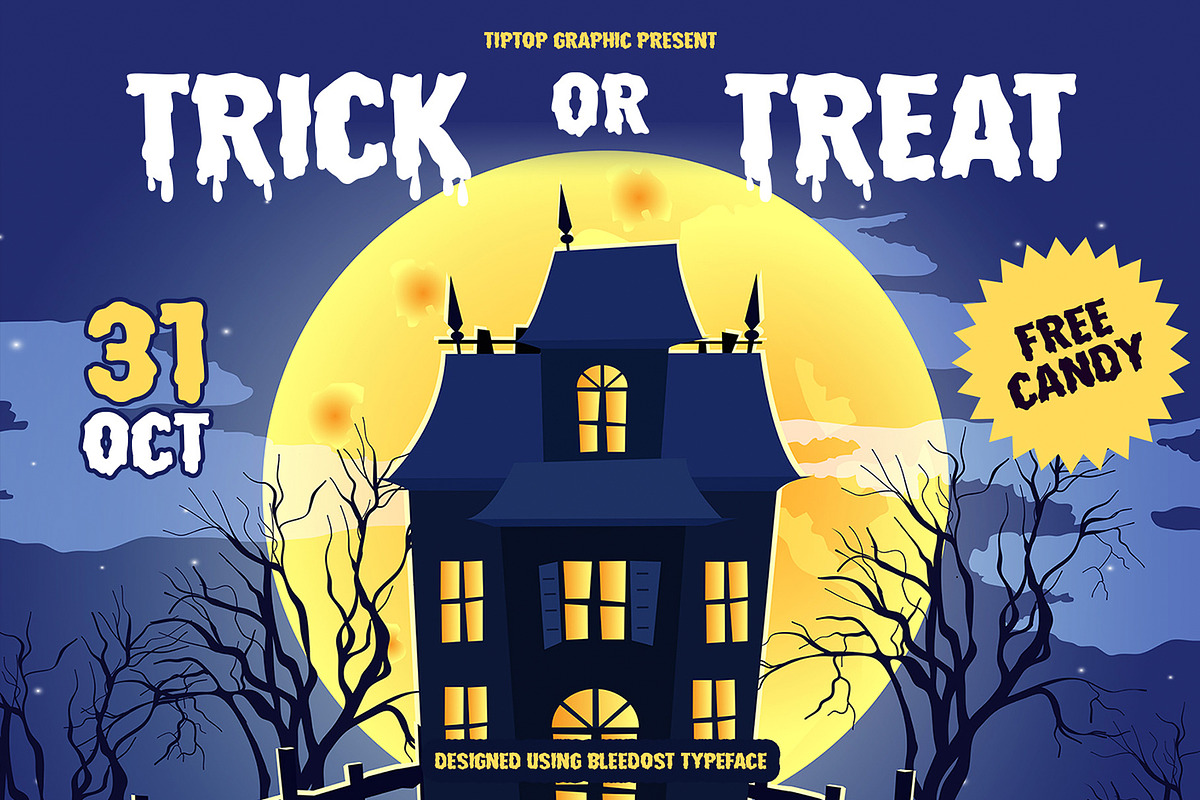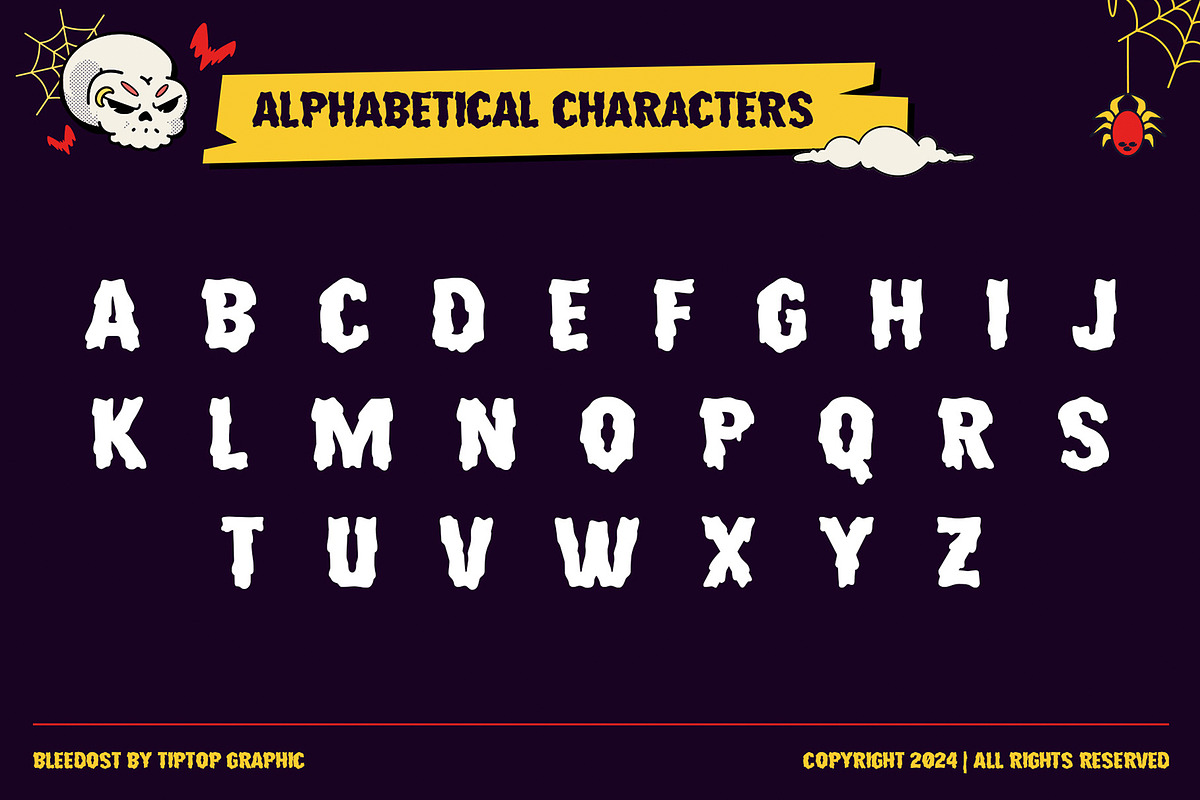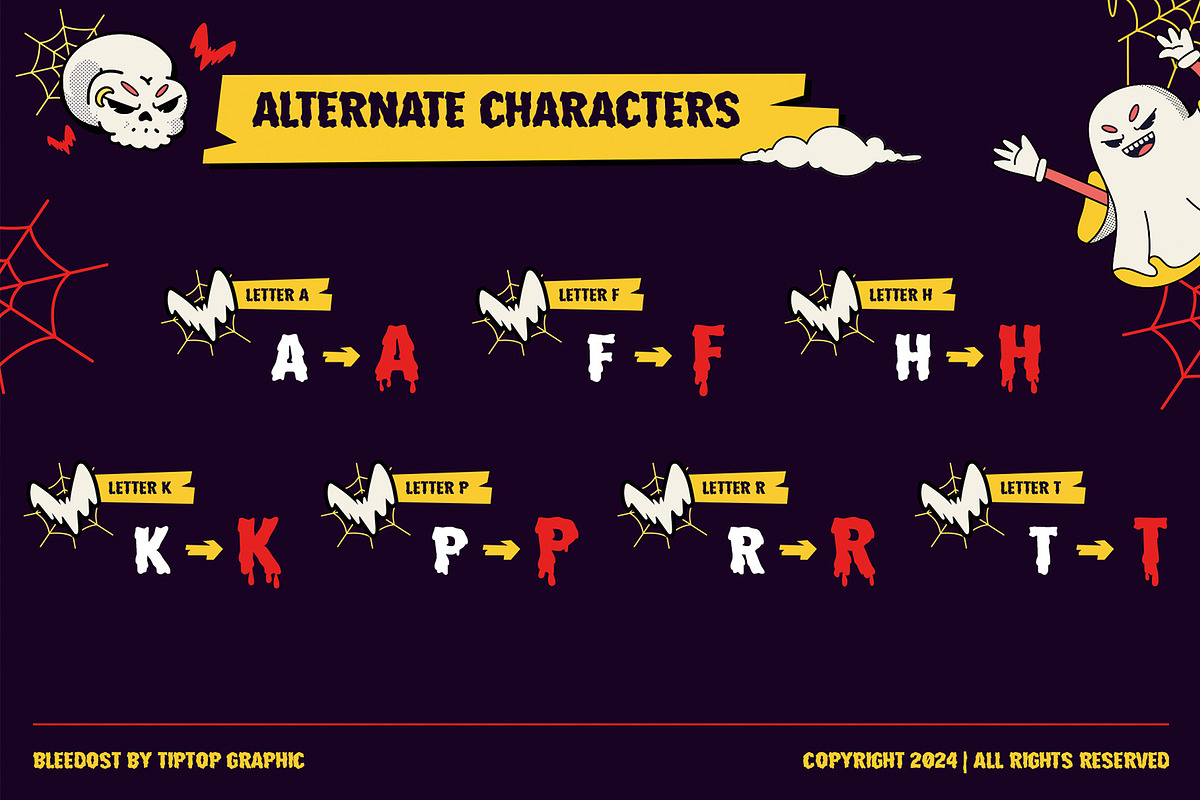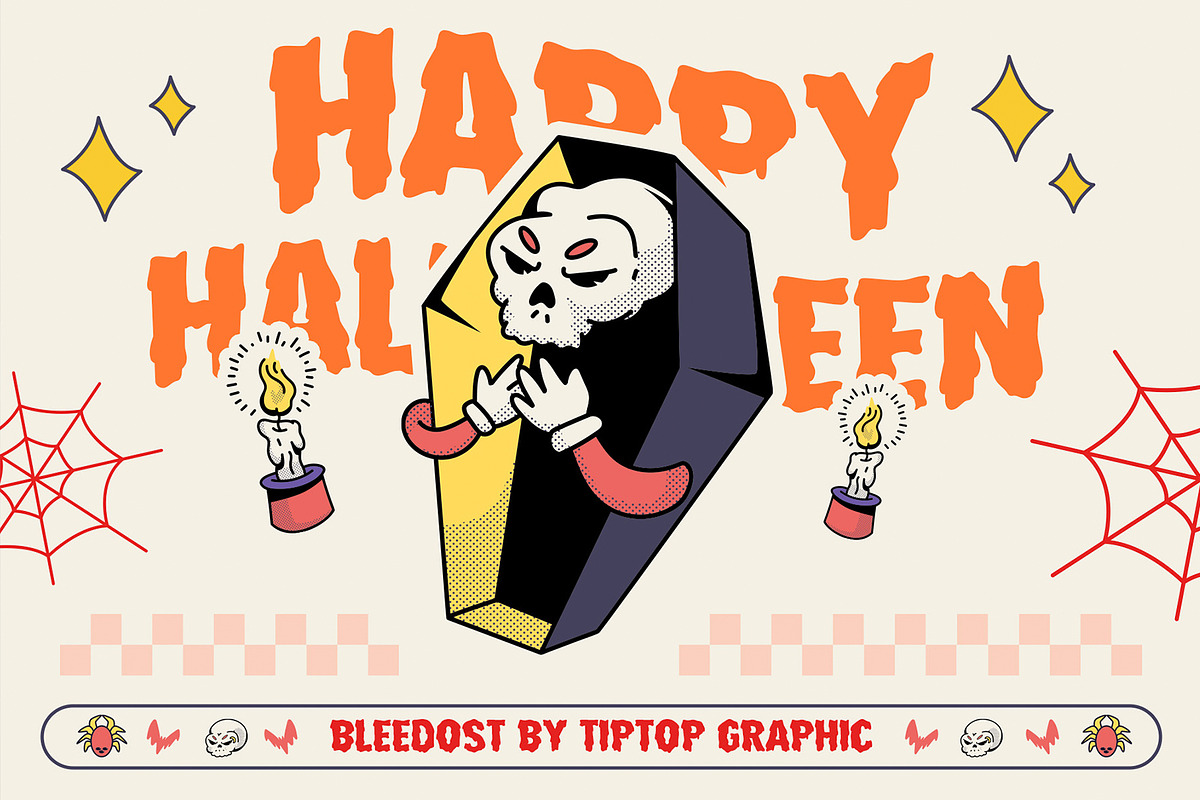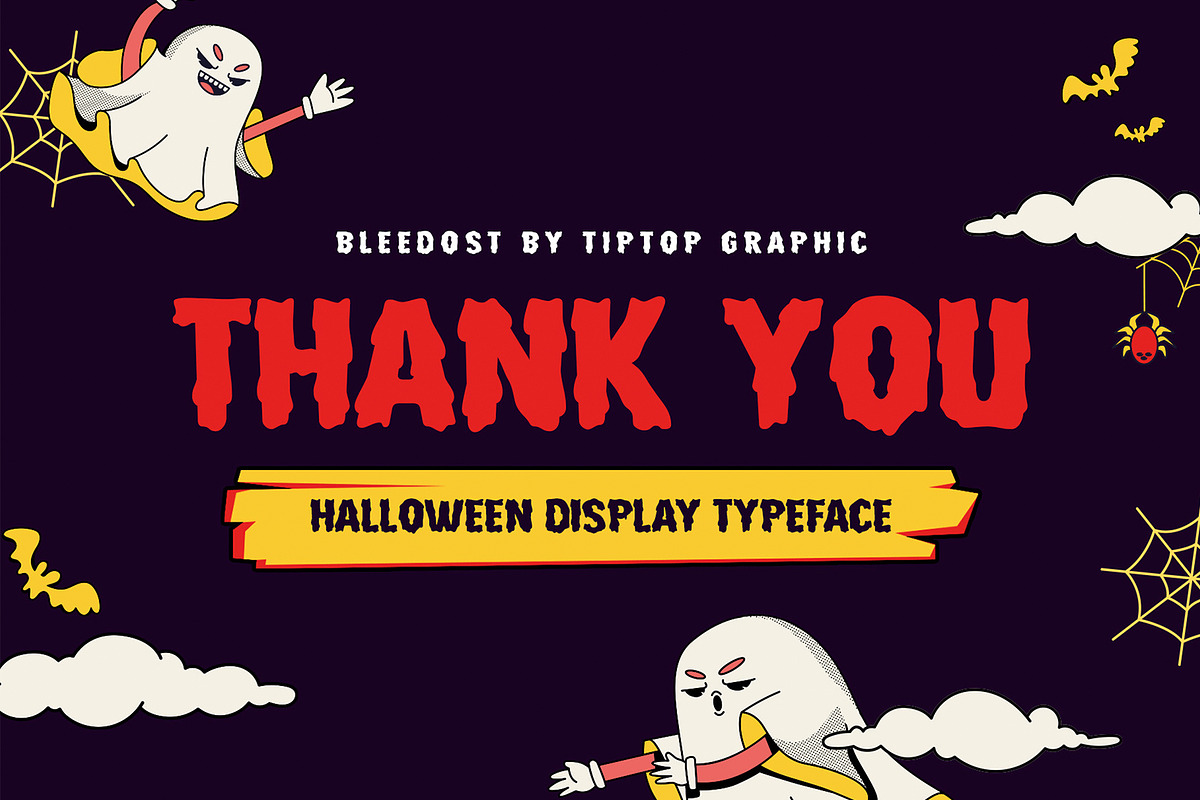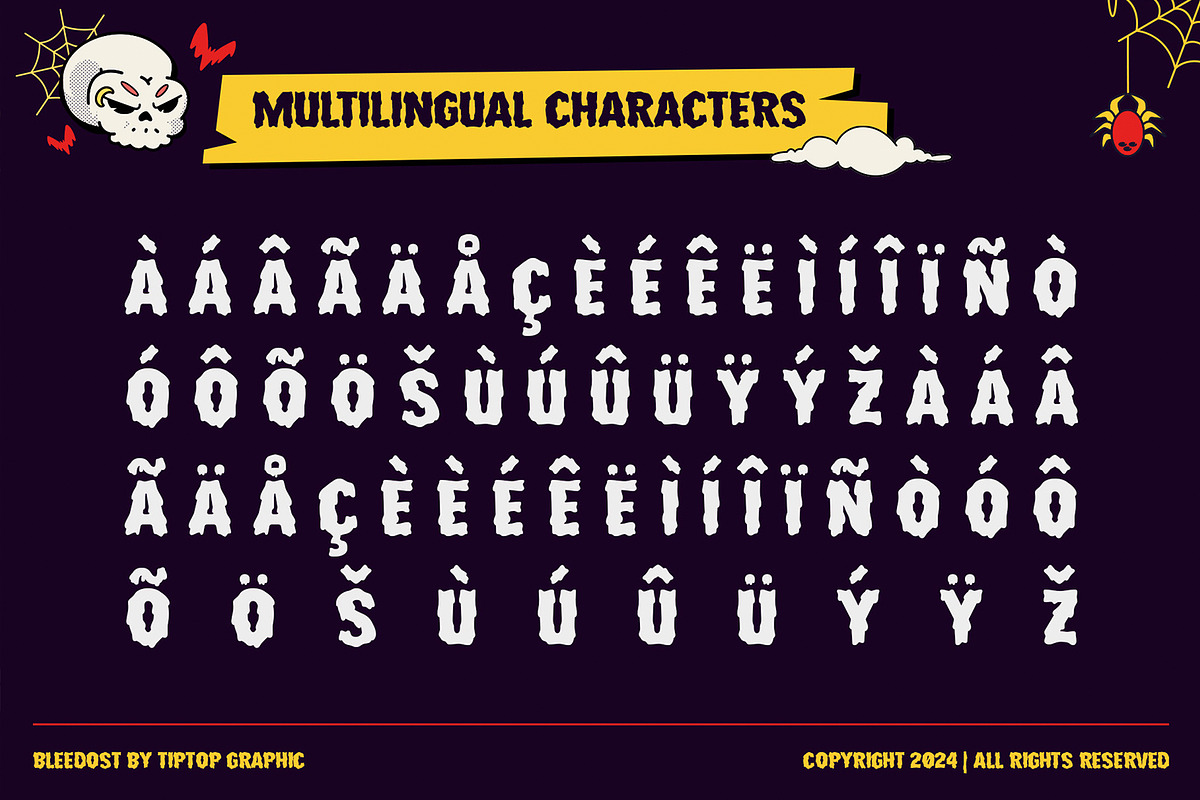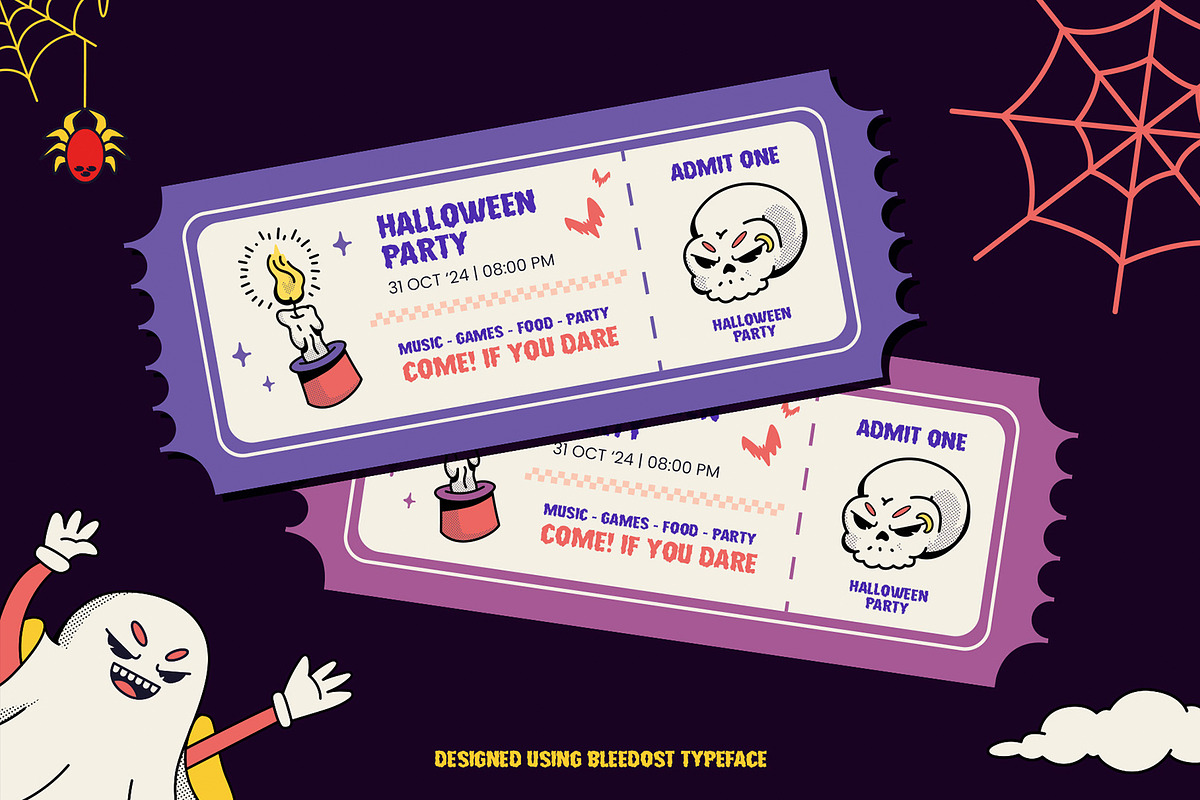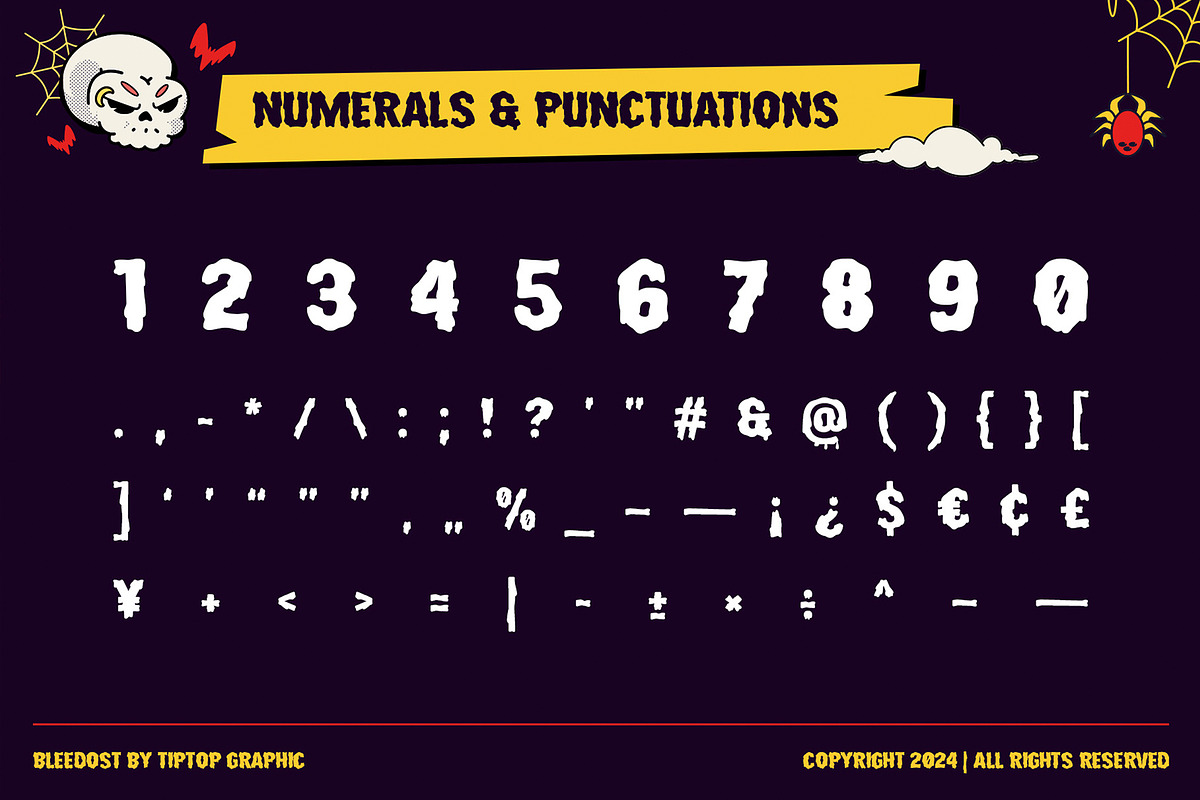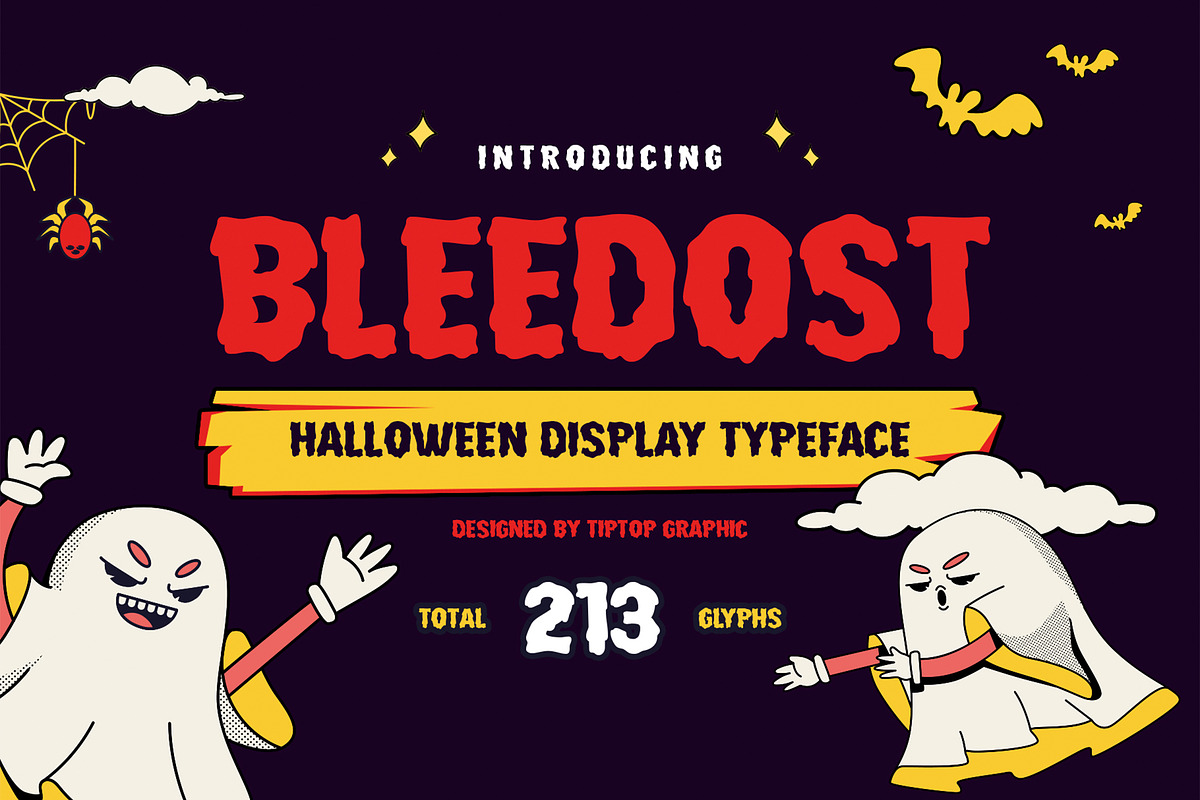
Bleedost – Halloween Display
Bleedost – Halloween Display Typeface Font
Bleedost is a captivating font that perfectly embodies the spirit of 30’s Retro Halloween. With it’s bold, playful curves and whimsical details, this typeface evokes a sense of nostalgia while adding a touch of spookiness to any design. Each letter feels like a character from a vintage Halloween tale, reminiscent of classic movie posters and festive decorations from a bygone era. Bleedost offers a delightful mix of charm and eeriness, ensuring your designs stand out in a fun, retro way. Perfect for anyone looking to capture the essence of a classic Halloween celebration!
Bleedost features:
- Character Set (All Caps)
- Punctuation & Numbers
- Alternates “A, F, H, P, T, K, R”
Elevate and explore the design possibilities with this 30’s Retro Halloween Design Font!